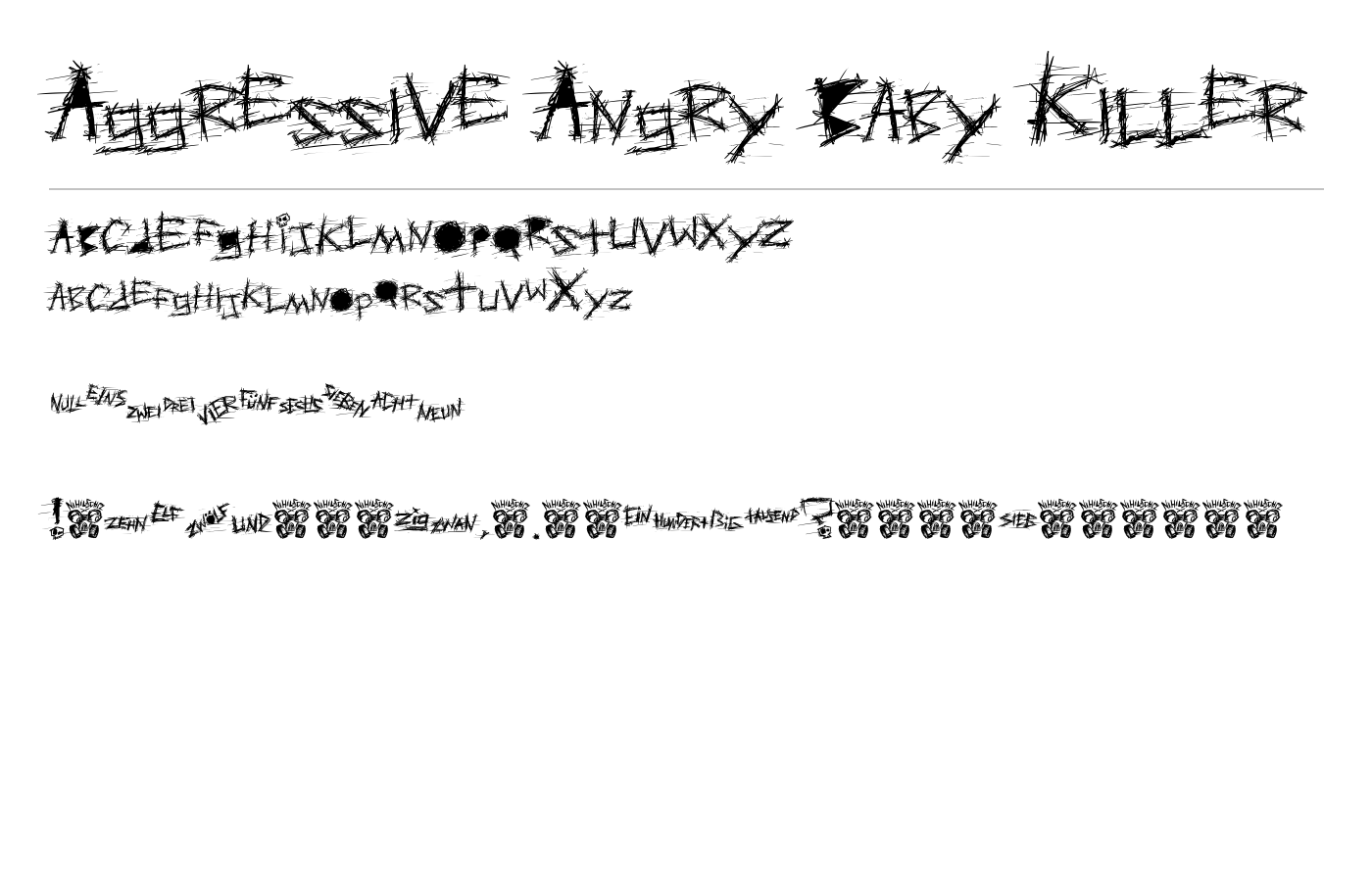
Aggressive Angry Baby Killer is a highly stylized, hand-drawn font with a jagged, chaotic appearance that exudes a raw, intense energy. Its rough, sketch-like strokes and uneven letterforms give it a rebellious and edgy personality, making it ideal for projects that aim to convey aggression, horror, or underground culture vibes. This font works best in bold headlines, posters, or graphic designs where a striking, unconventional impact is desired.
Aggressive Angry Baby Killer Font
About Aggressive Angry Baby Killer Font
| Font family | Aggressive Angry Baby Killer Font |